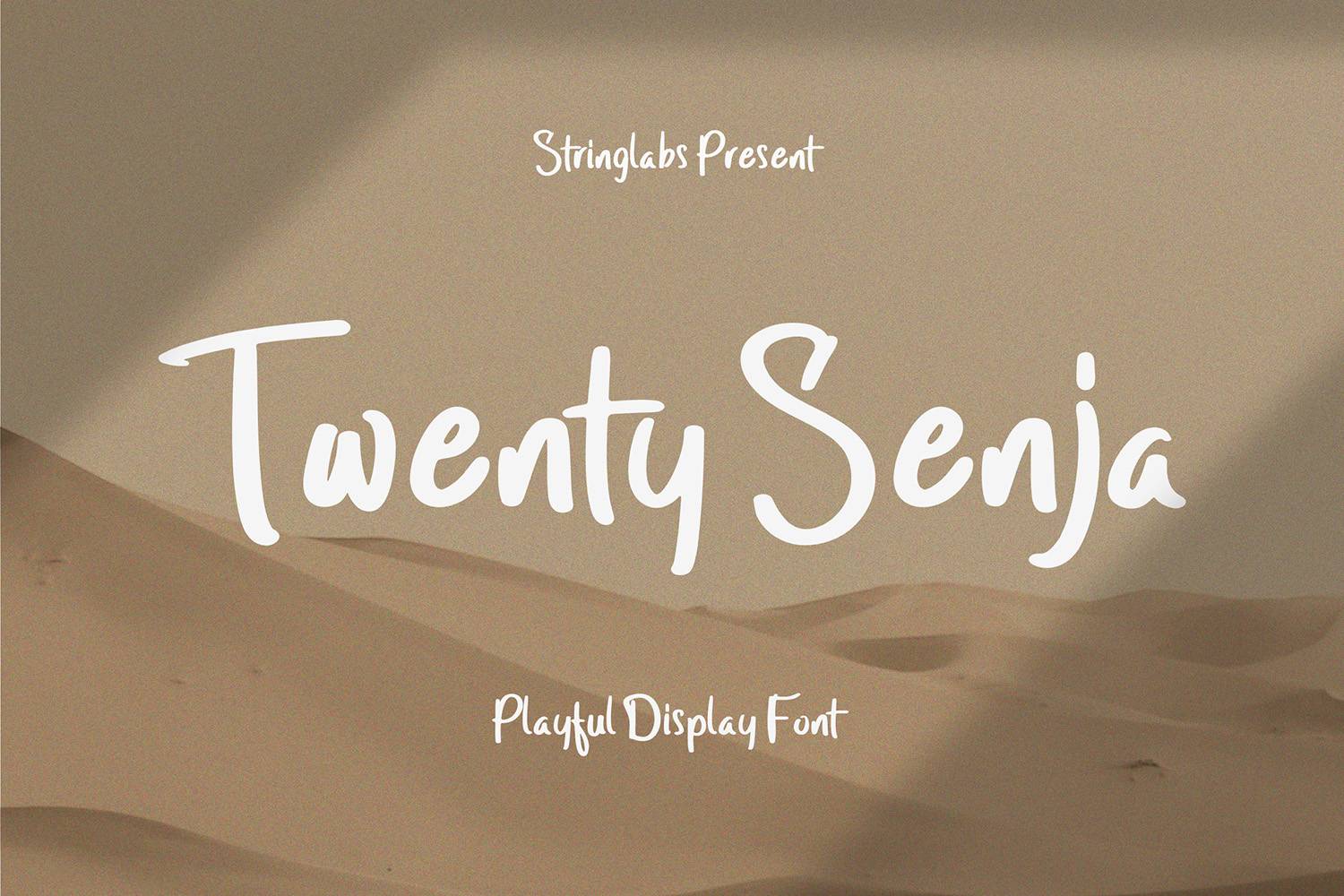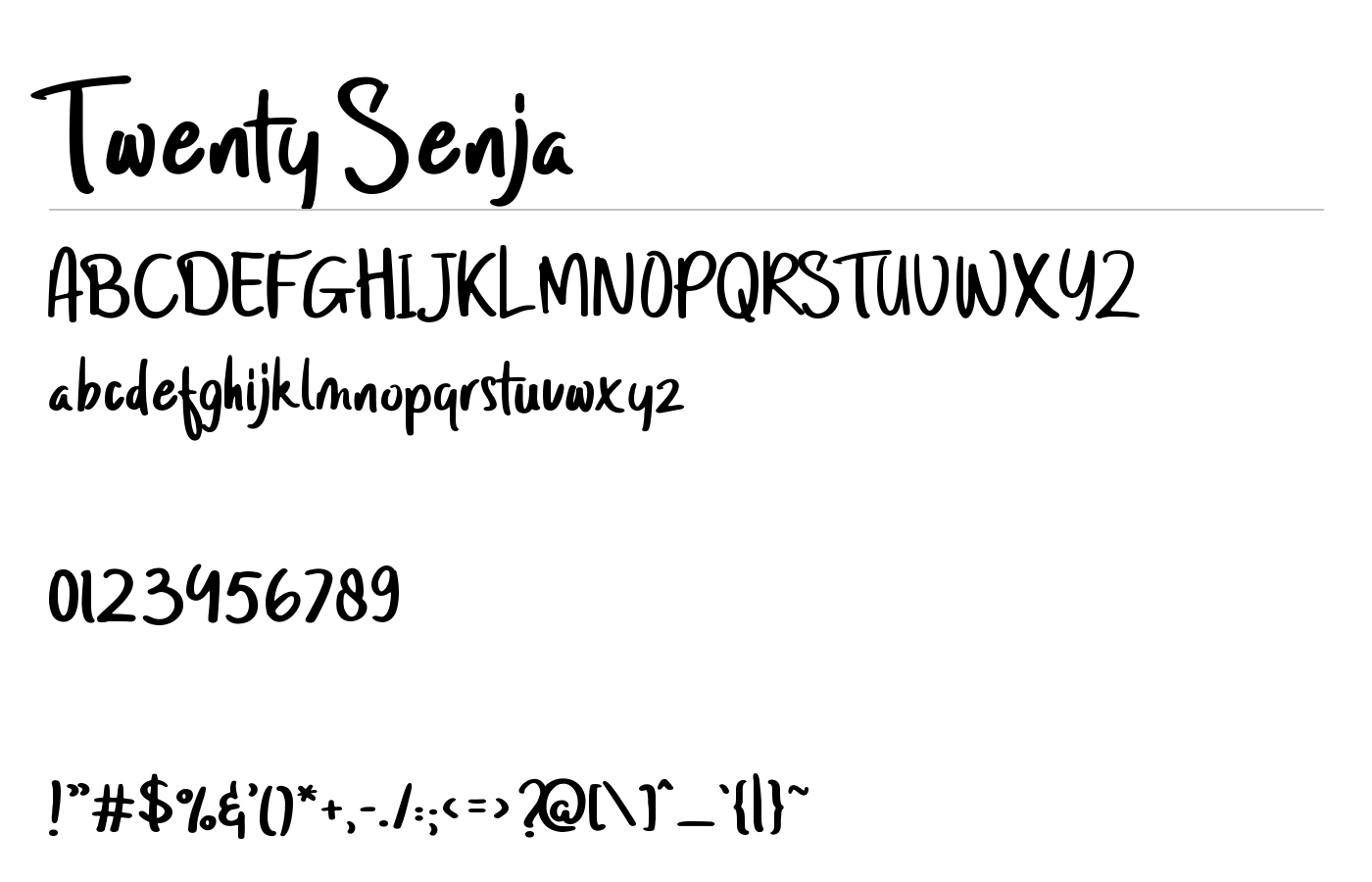
Twenty Senja is a playful and casual handwritten font with a slender, upright style that combines a friendly, organic feel with clear readability. Its lively strokes and slightly irregular letterforms give it a personal and approachable personality, making it ideal for creative branding, informal invitations, and fun editorial projects. This font works best in settings where a warm, human touch is desired without sacrificing clarity.
Twenty Senja Font
About Twenty Senja Font